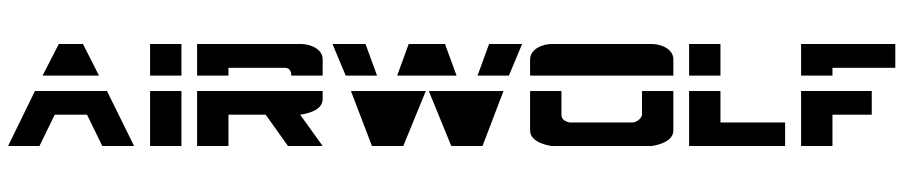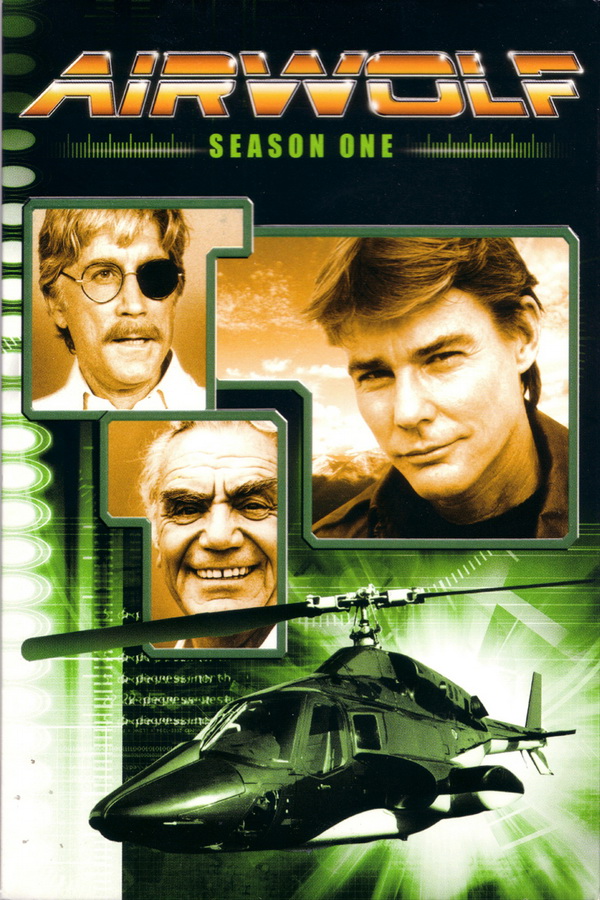
Airwolf Font
ActionAirwolf was an American action television series that aired from 1984 to 1987. It followed a high-tech military helicopter and its crew on various missions and starred Jan-Michael Vincent and Ernest Borgnine.